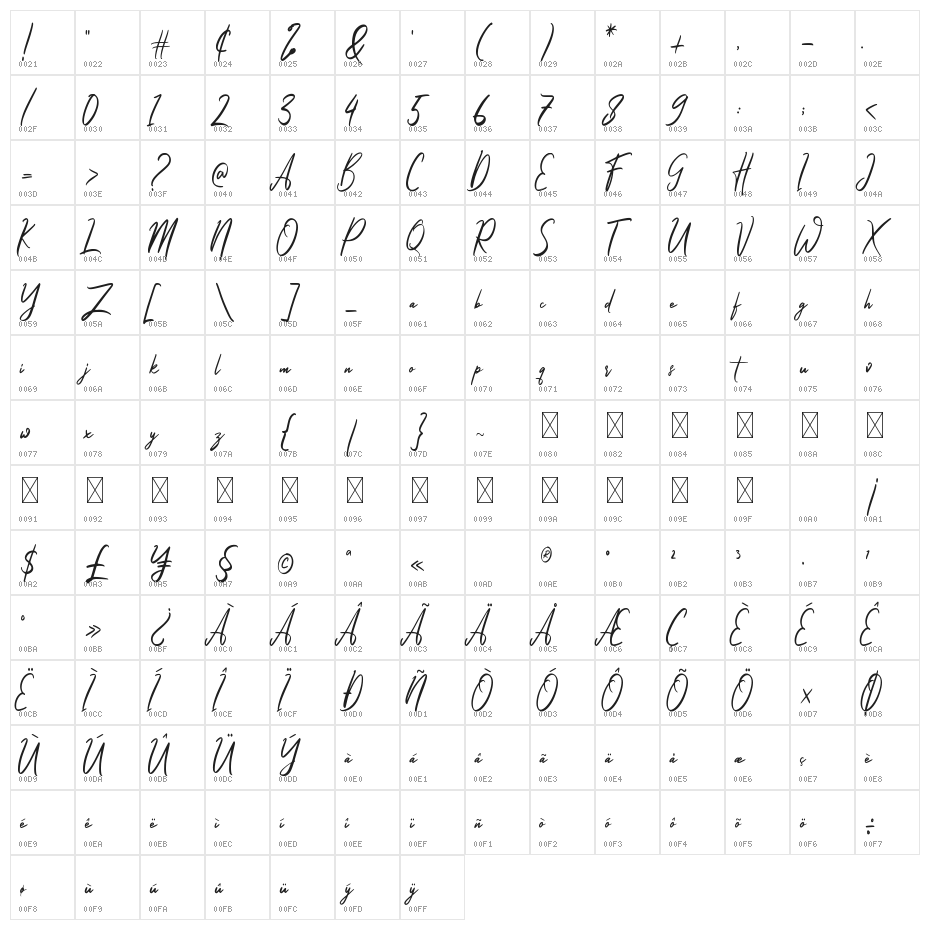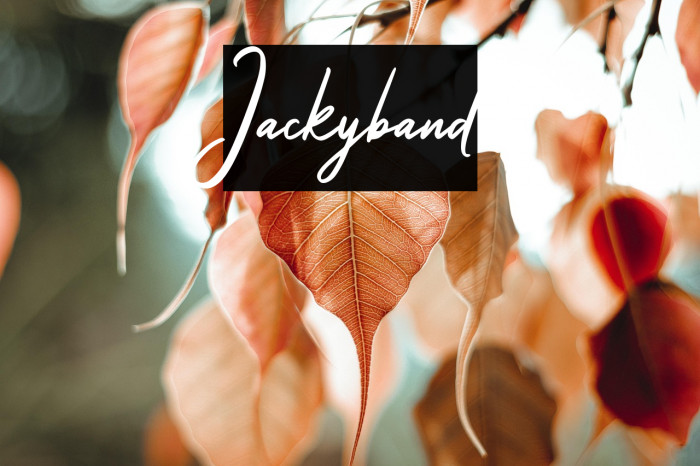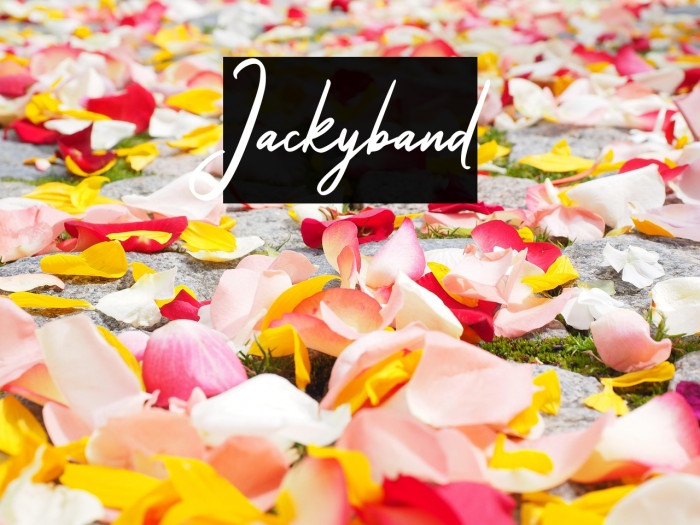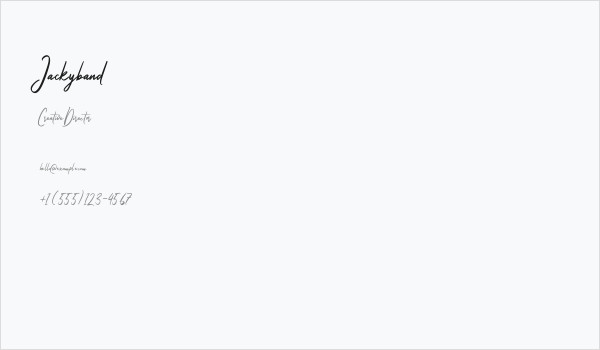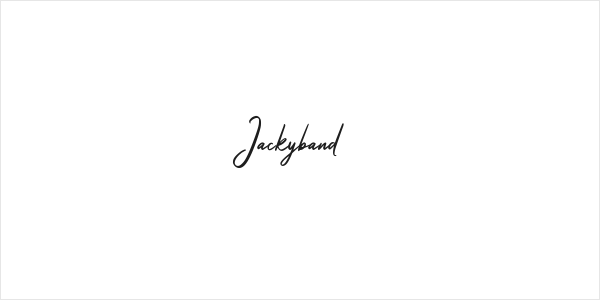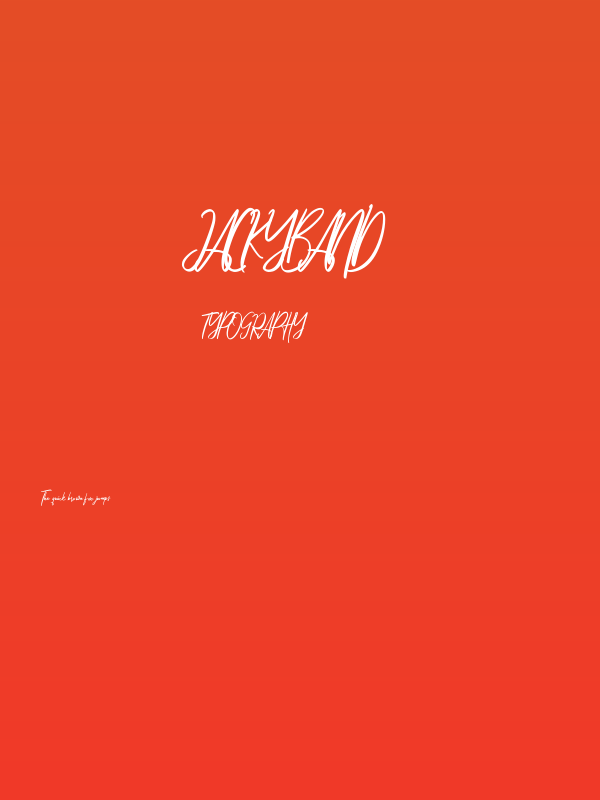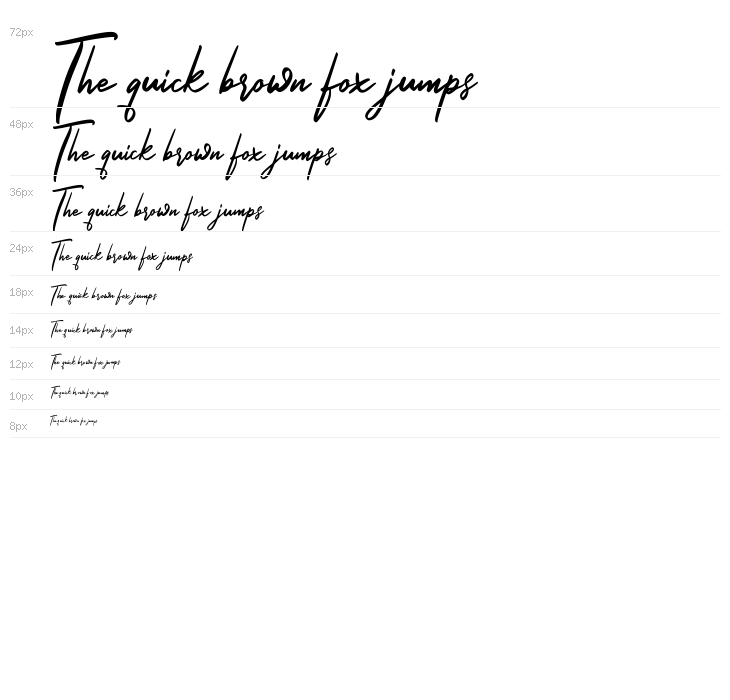
Jackyband Font
Jackyband Description
A highly expressive, handwritten script font with tall, narrow letterforms and dramatic, sweeping strokes. The characters are connected in a fluid, cursive style, giving a dynamic and energetic appearance. The font features high contrast between thick and thin lines, with exaggerated ascenders and descenders.
| Overall Style | Decorative, Expressive, Modern |
| Use Case | Logos, Headlines, Invitations, Artistic projects |
| Proposed Projects | Event invitations, personal branding, expressive headlines, artistic posters, signature logos. |